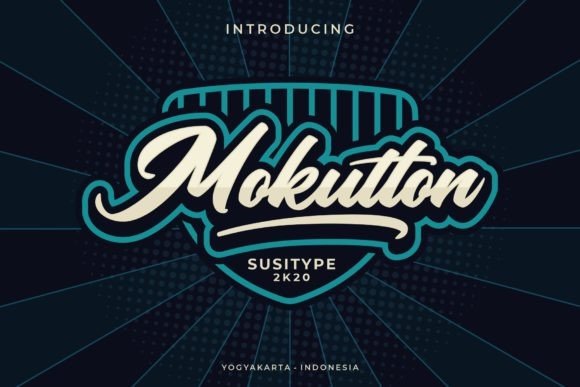
Mokutton Calligraphy Font
This is charming and elegant. This stunning script font is a stylish homage to classic calligraphy.
That makes the font look fabulous! It’s designed and shared by susitype.
Mokutton Calligraphy Font is a bold handwritten font, carefully handcrafted to become a true favorite.